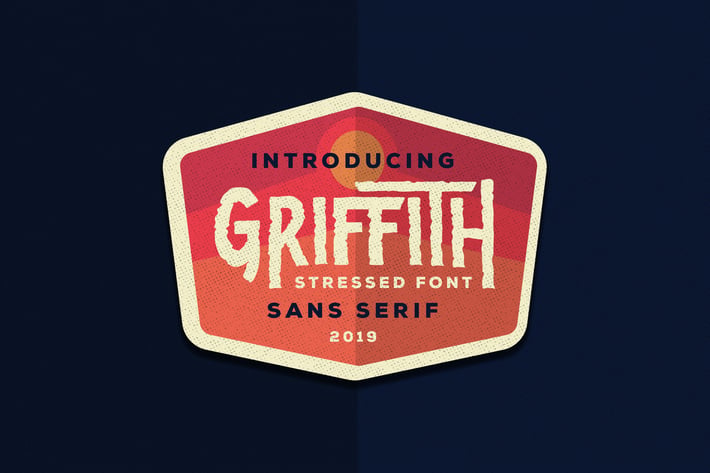
Griffith - Stressed Font
Griffith is perfect to use for Logotype, Letterhead, Poster, Apparel Design, Label and etc.
The alternative characters were divided into several features such as Stylistic Alternates and Ligature.